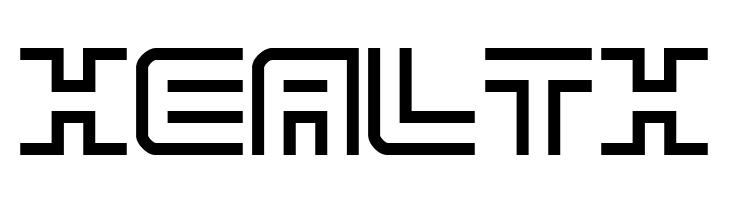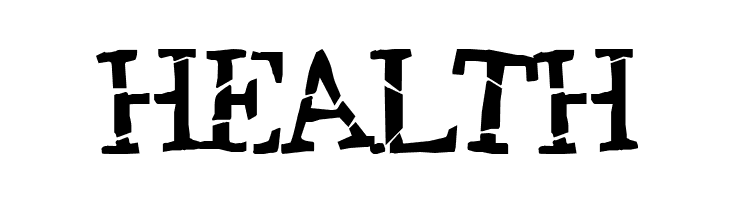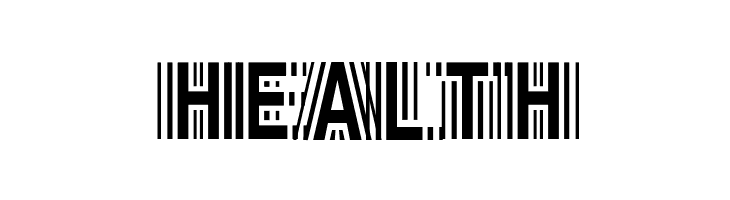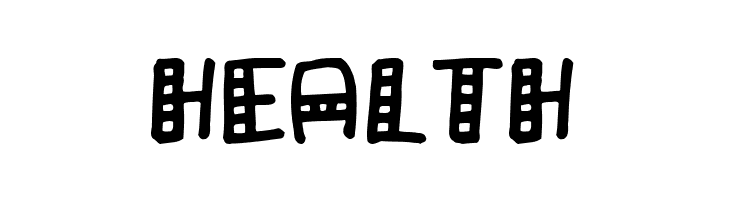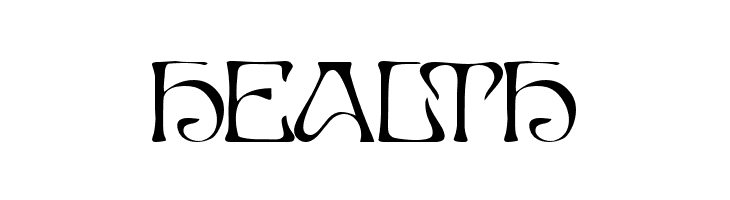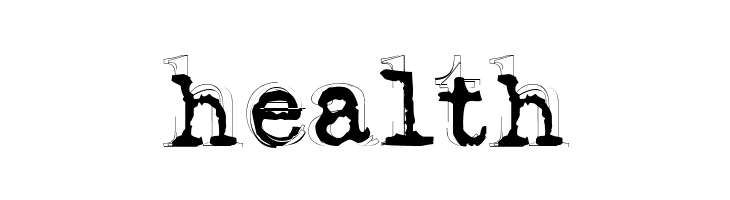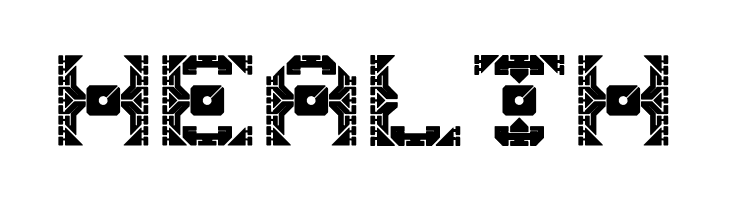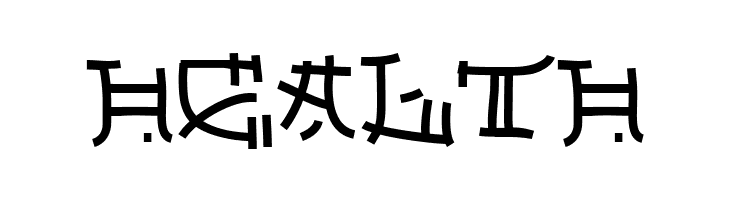
A geometric, futuristic font with a stencil-like design and bold, angular lines.
A bold, stencil-like font with a rugged, industrial design.
A bold, decorative font with a dynamic echo effect.
A bold, distressed serif font with a vintage, artistic style.
A futuristic, angular font with sharp edges and geometric shapes.
A bold, geometric font with a futuristic and tribal aesthetic.